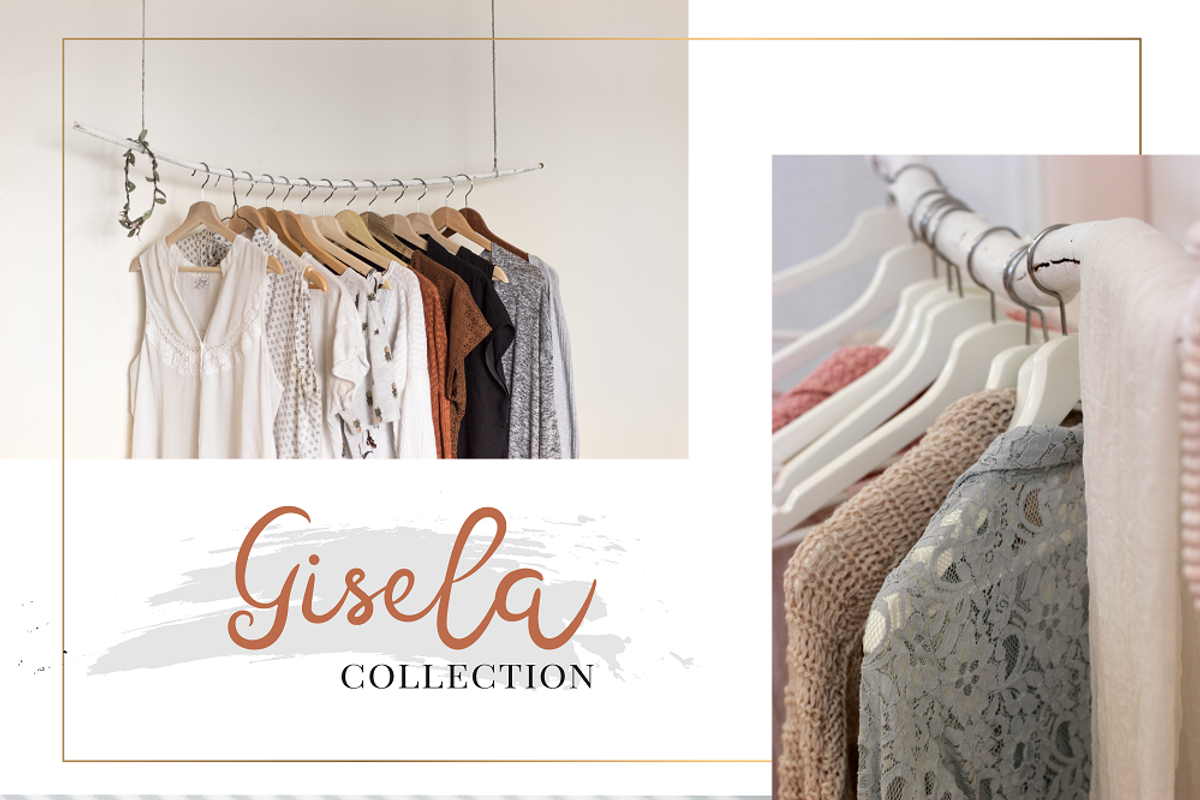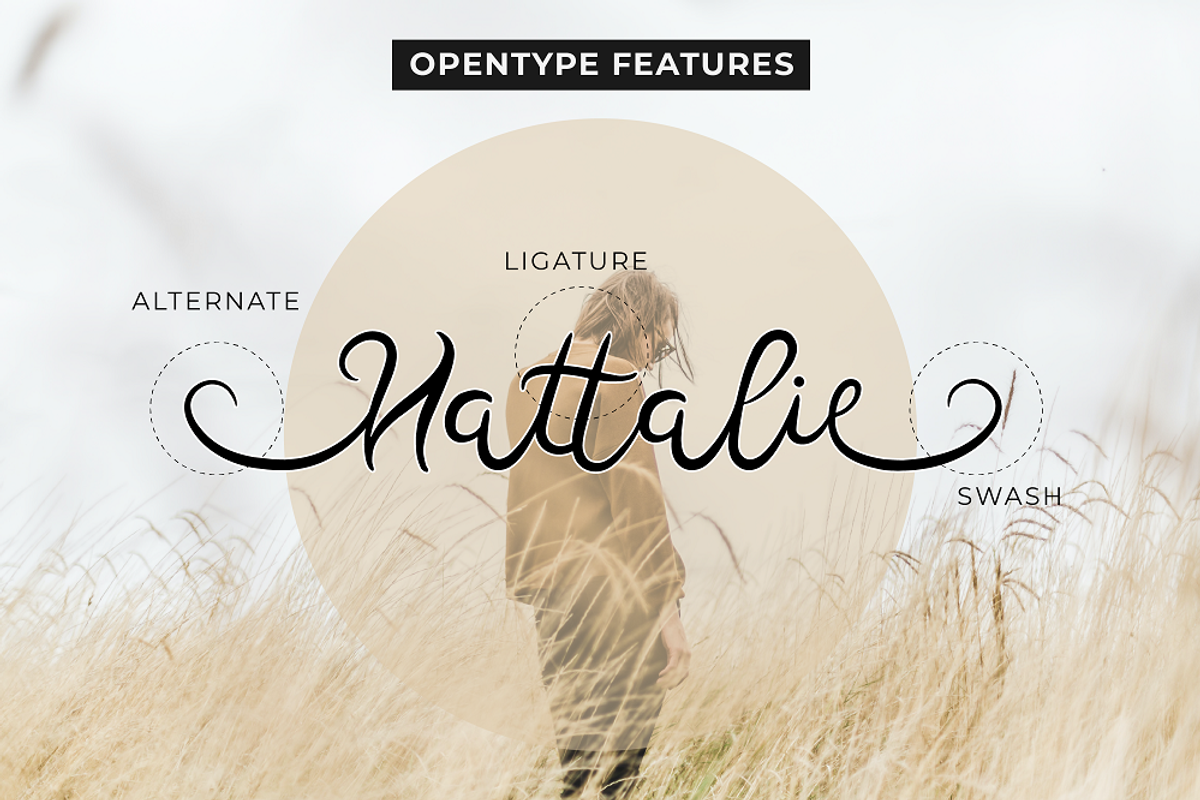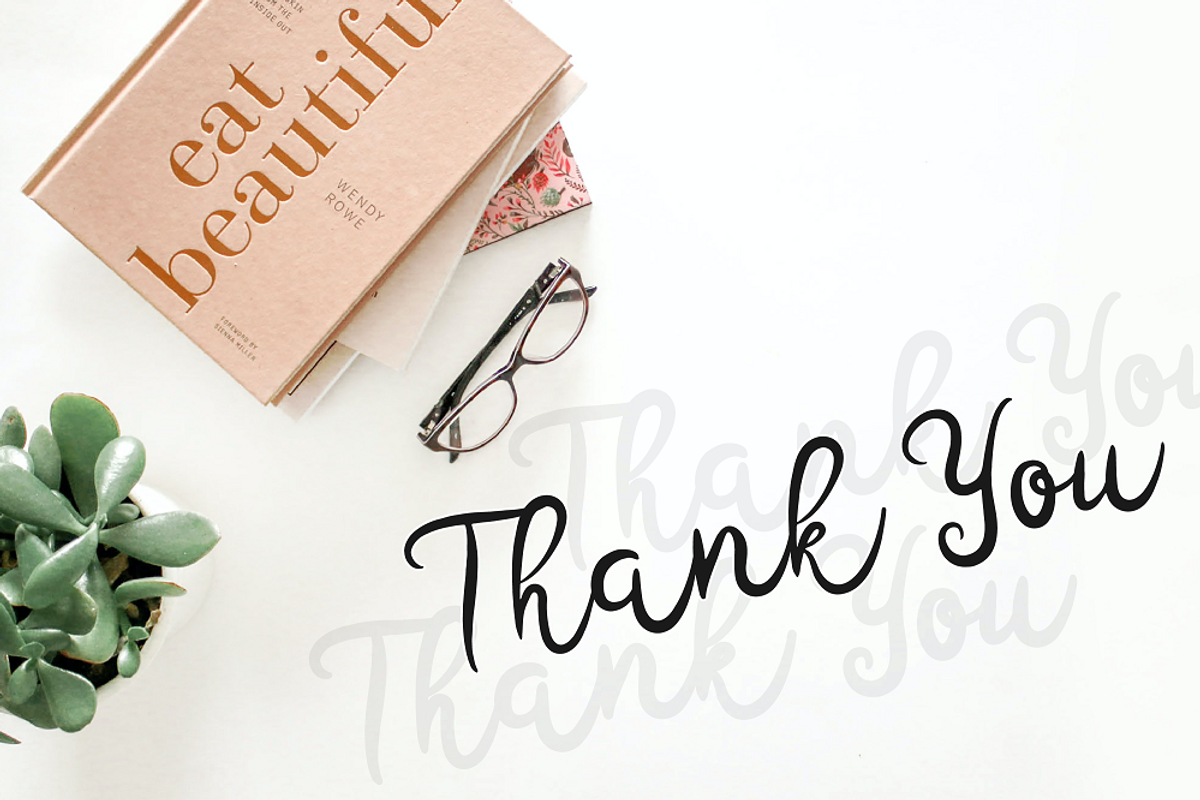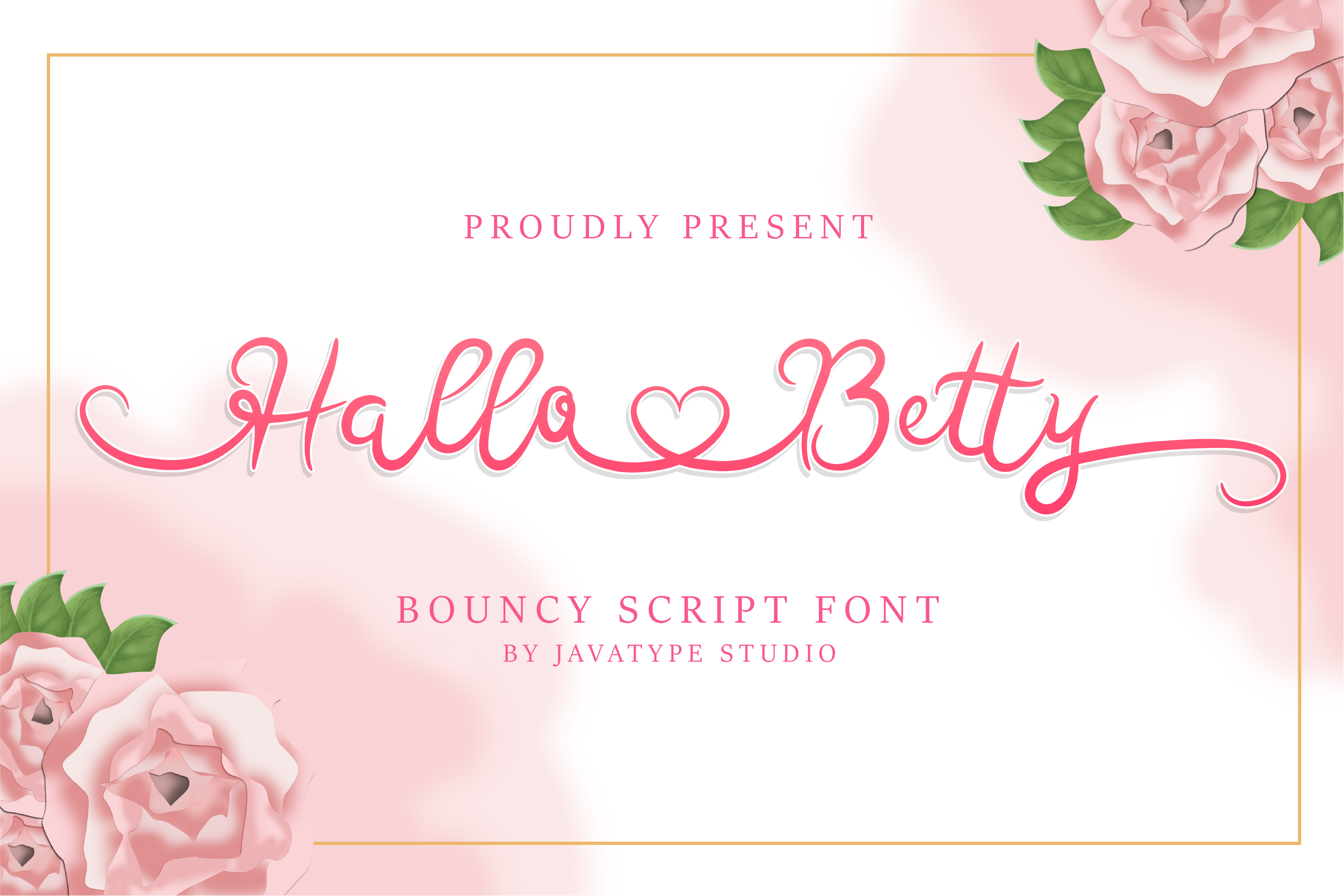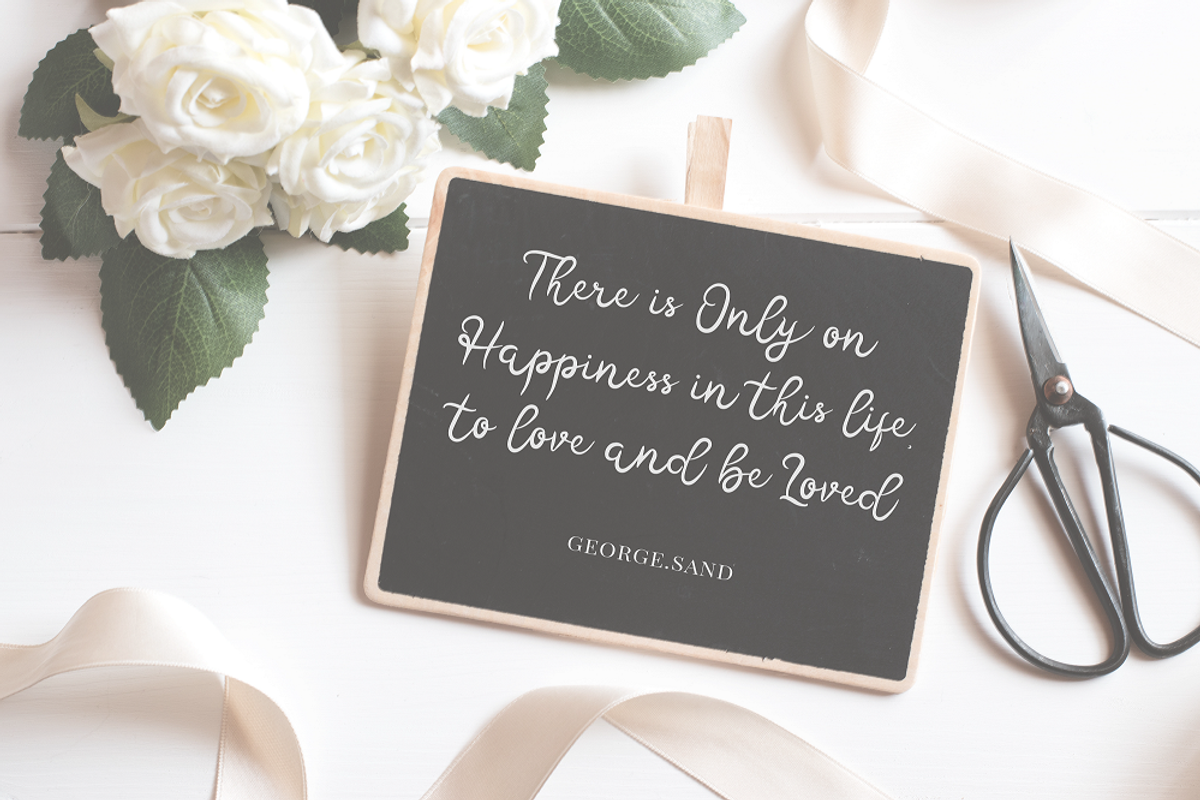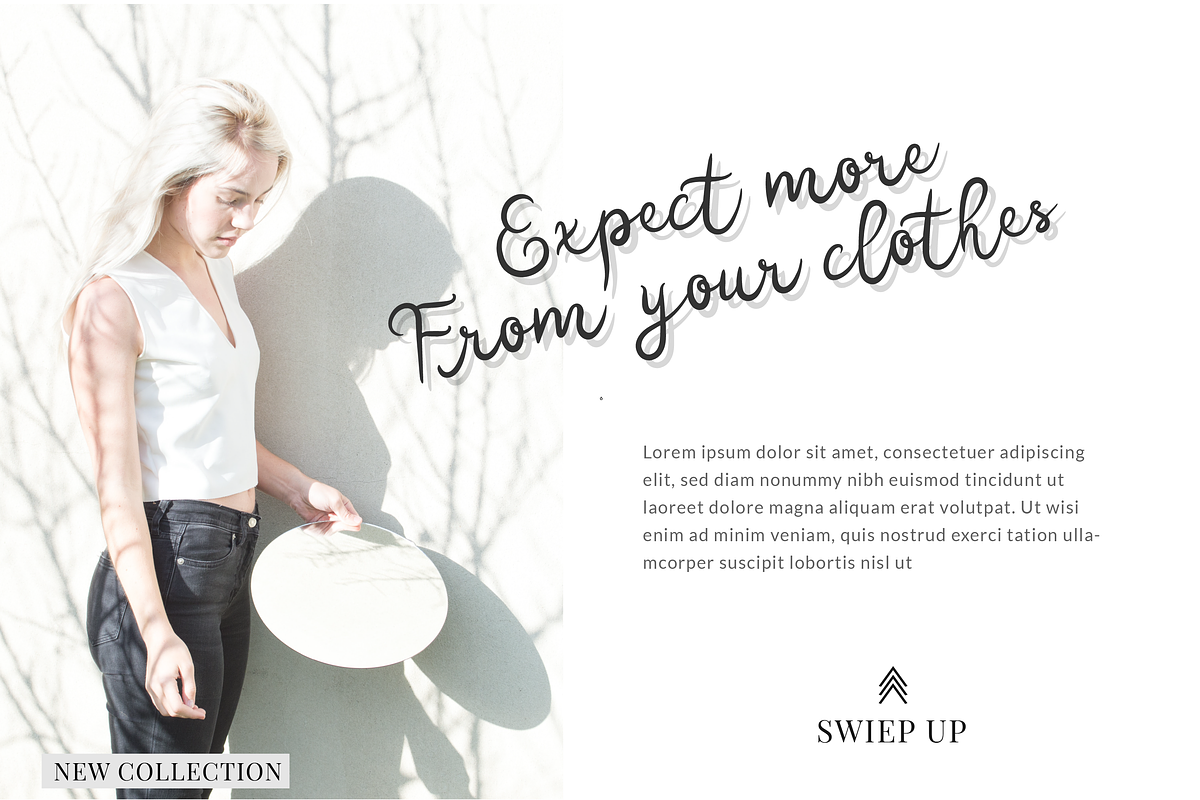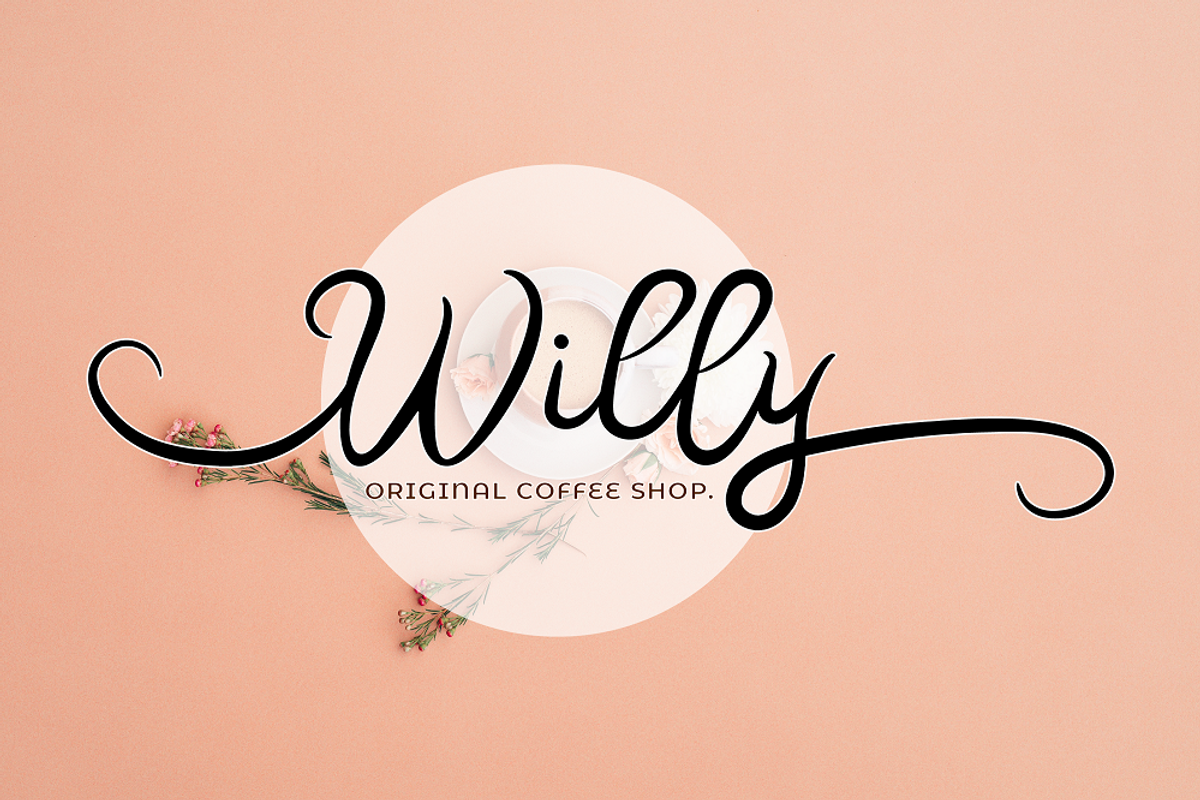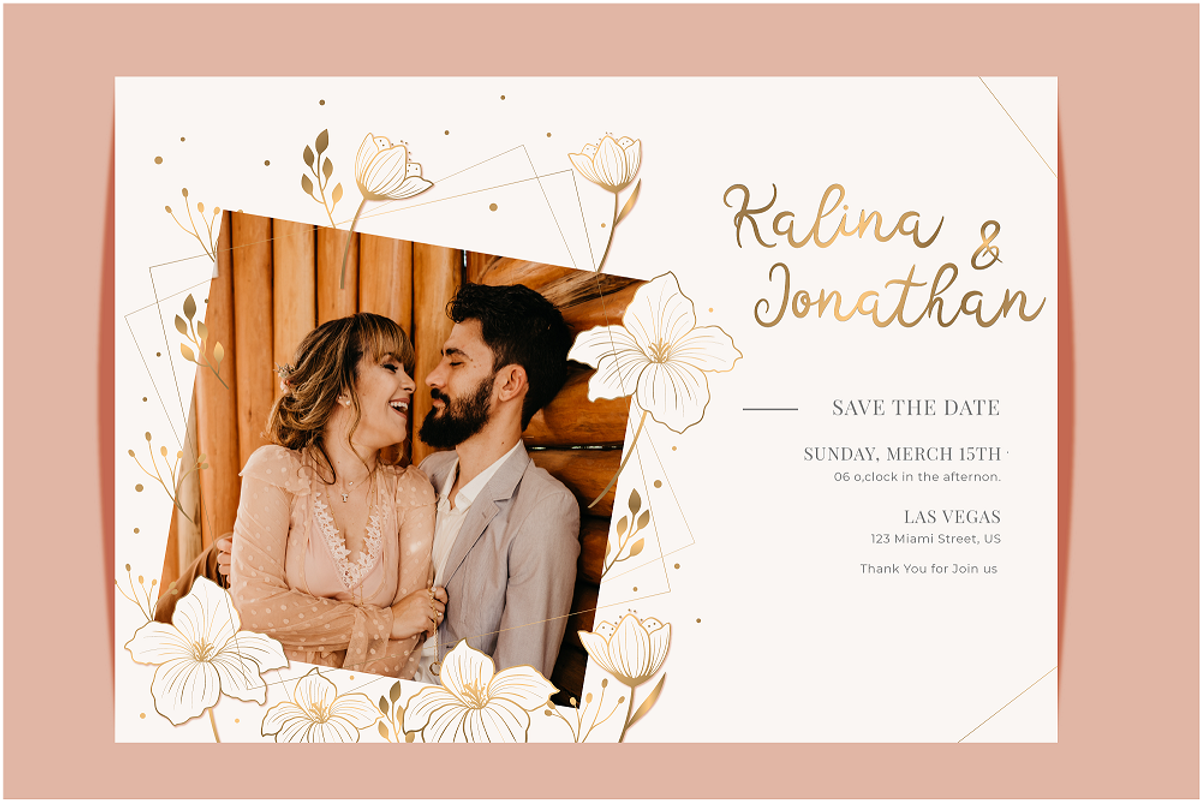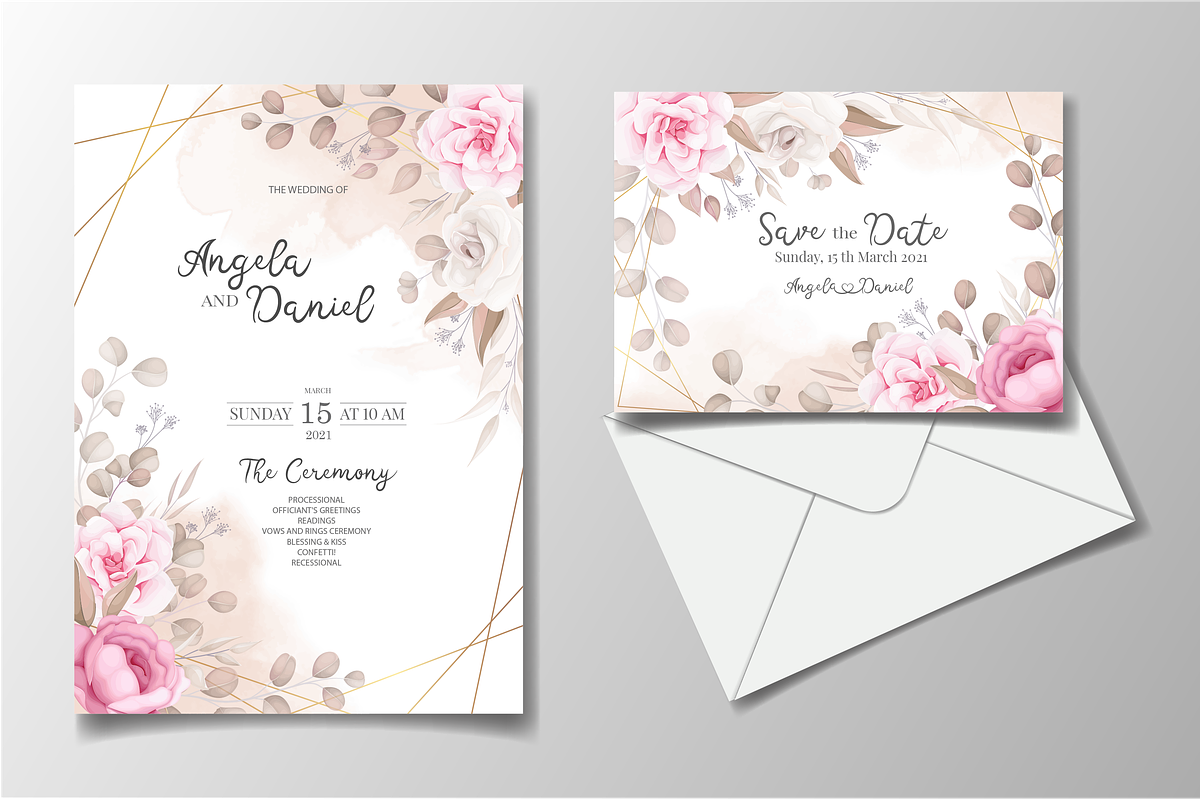
Hallo Betty a modern lovely font
Hallo Betty is a modern lovely font The shape is modern and unique and the writing style is very natural.
Hallo Betty would perfect for watermark, social media posts, quote, photography, coffee shop logo logos & branding, invitation, product designs, label, stationery, wedding designs, product packaging, special events or anything that need handwriting taste.
- Ligature and Stylish Alternate